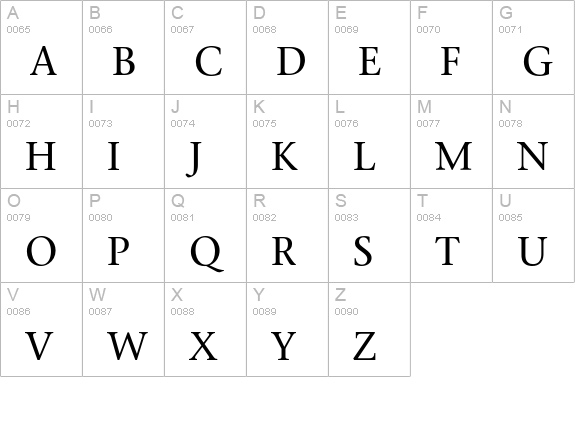
Stone Serif Expert Medium Font Details
Stone Serif Expert Medium is a balanced, medium-weight variant in the Stone typeface family \xE2\x80\x94 well suited to sub-headlines, navigation, and balanced editorial work.
Stone Serif Expert Medium font is a classic and elegant typeface that exudes sophistication and professionalism. With its sturdy serifs and balanced x-height, this font is perfect for a wide range of design projects, from branding to editorial layouts. The medium weight strikes the perfect balance between readability and impact, making it a versatile choice for both body text and headlines. What sets Stone Serif Expert Medium font apart is its exceptional legibility and timeless appeal. The clean lines and subtle details make it a reliable choice for projects that require a touch of refinement. Whether you're designing a business card, a website, or a print publication, this font will elevate your project and give it a polished finish. The best part is that Stone Serif Expert Medium font is available for free download at FontsMarket.com. This means you can easily access this high-quality typeface without breaking the bank. Don't miss out on the opportunity to enhance your designs with this sophisticated and versatile font. Download Stone Serif Expert Medium today and take your typography to the next level.